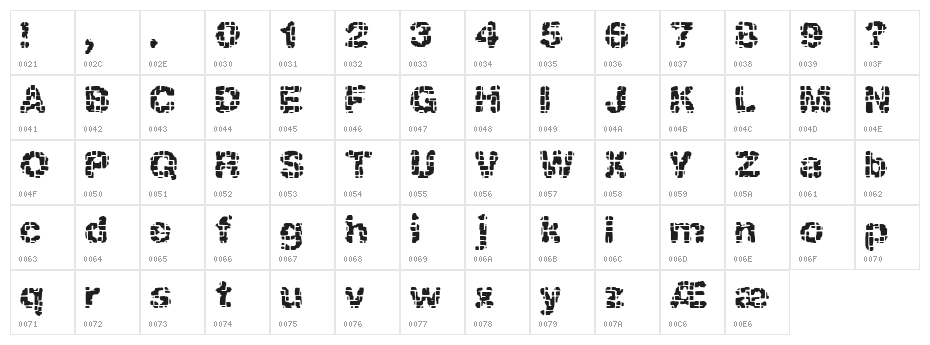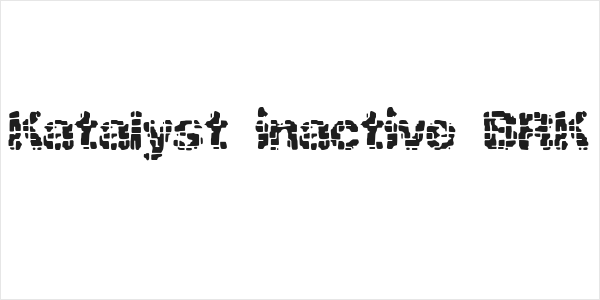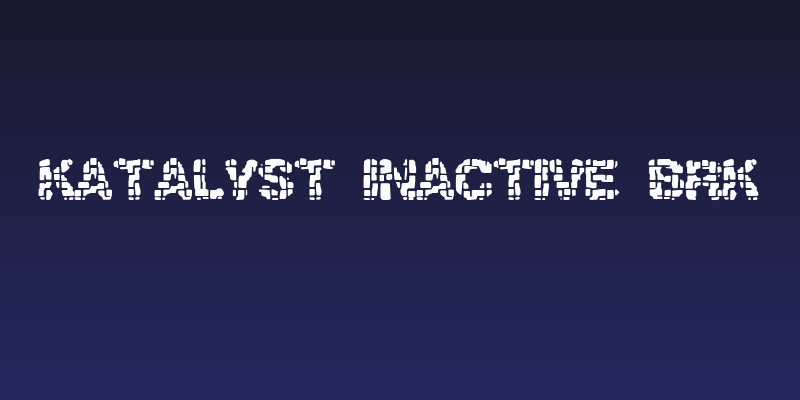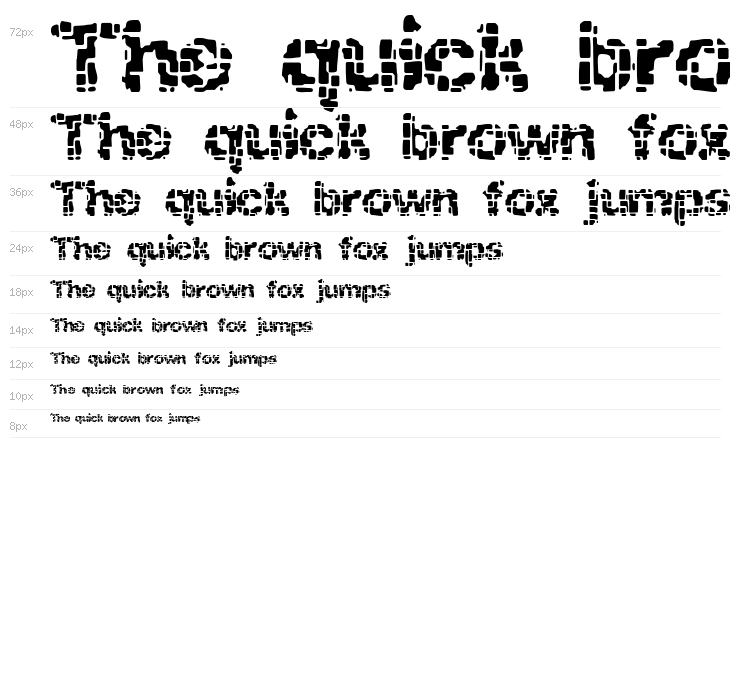
Katalyst inactive BRK Font
Katalyst inactive BRK Description
This font features a bold and unique design with a pixelated, fragmented appearance. Each character is composed of distinct blocks, creating a digital or technological aesthetic. The uppercase and lowercase letters maintain a consistent style, with the uppercase being slightly more pronounced. Numbers and special characters follow the same fragmented pattern, ensuring uniformity across all glyphs. The font's distinct style makes it stand out, ideal for projects that require a modern and edgy look.
| Proposed Projects | Ideal for tech-themed designs, video game graphics, digital art projects, and modern branding. |